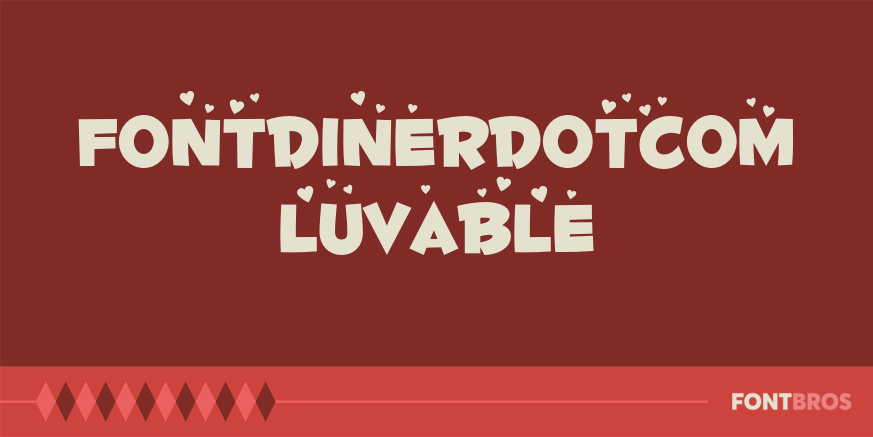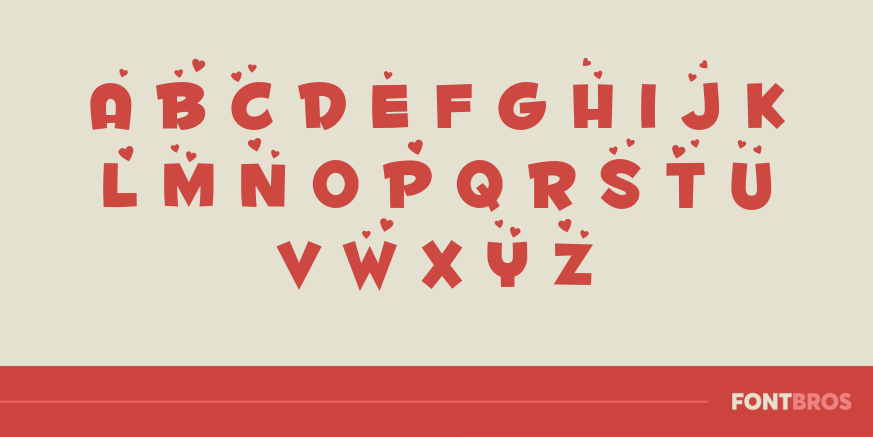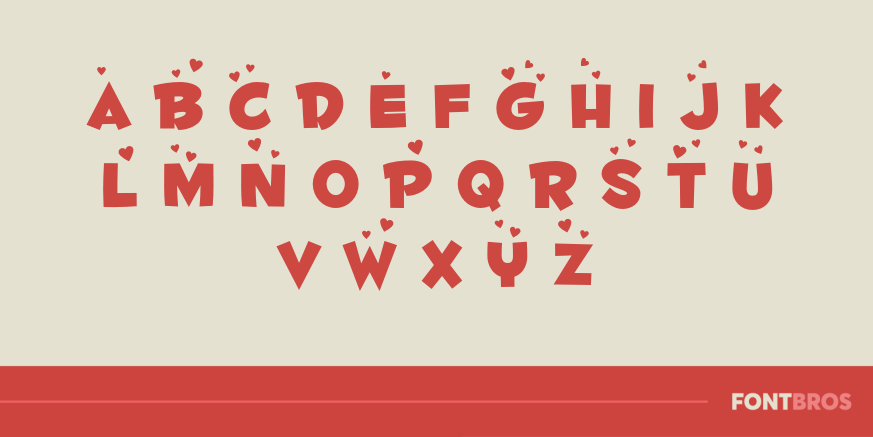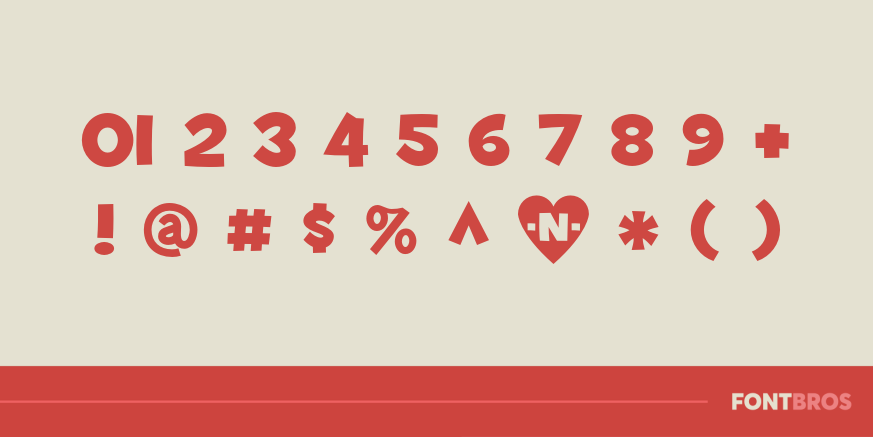
Fontdinerdotcom Luvable
Font Family by Font Diner
The next time somebody catches you blushing, they just may see tiny animated floating hearts over your head! It's just Luvable!